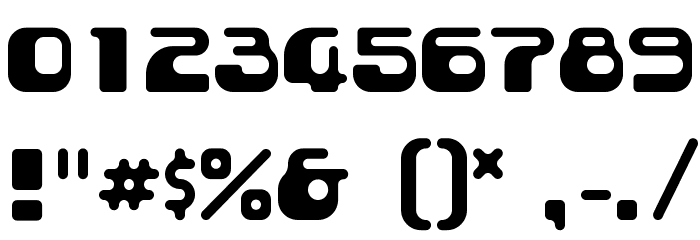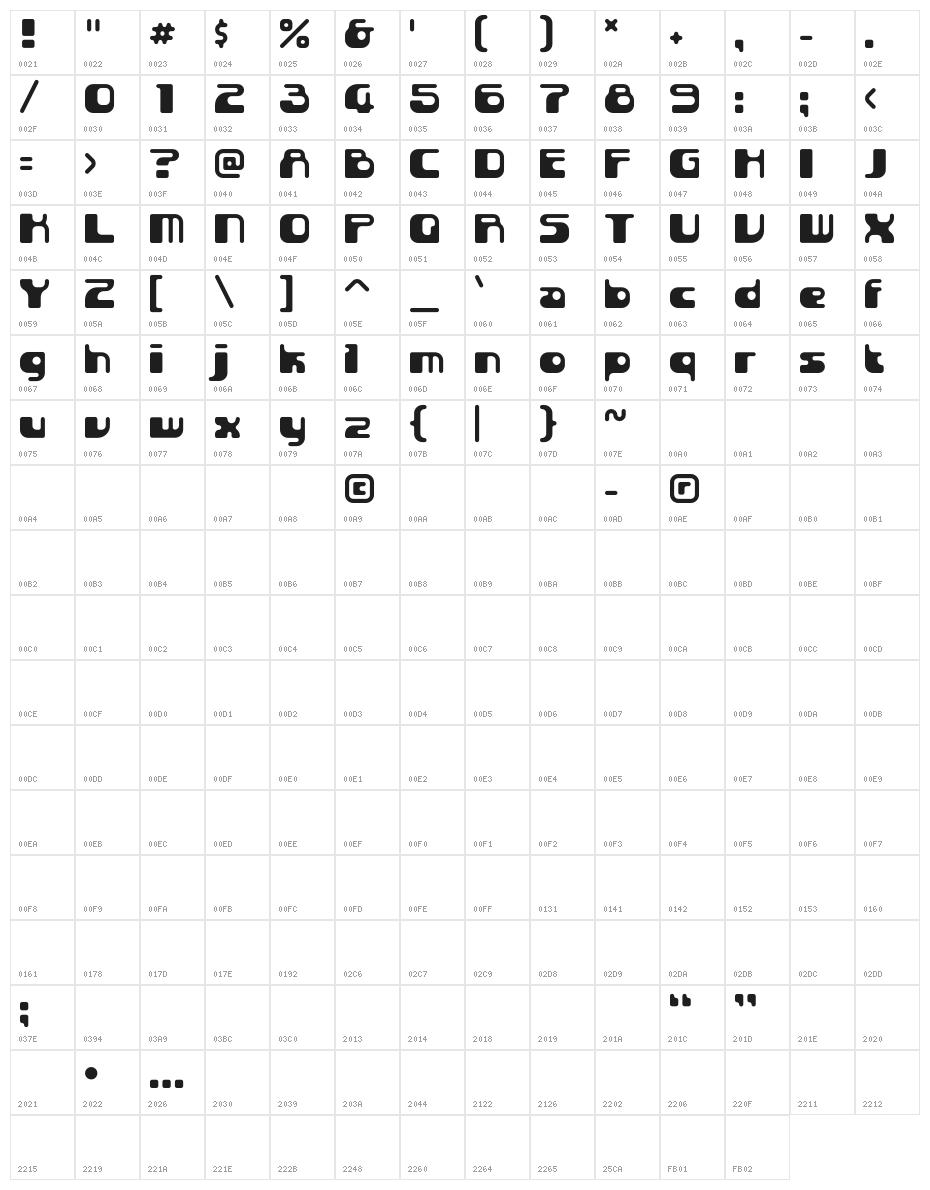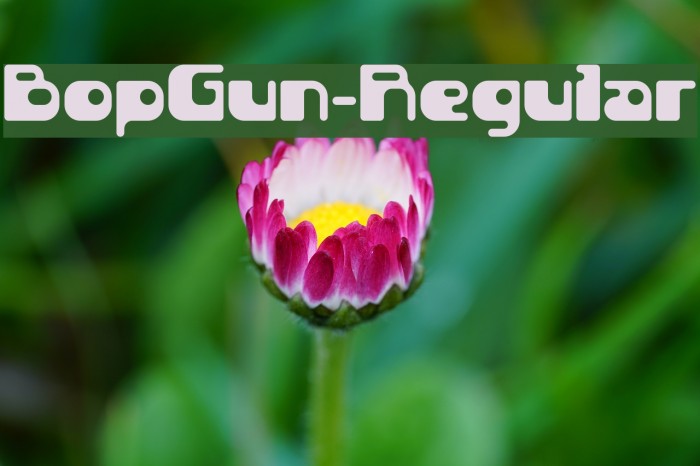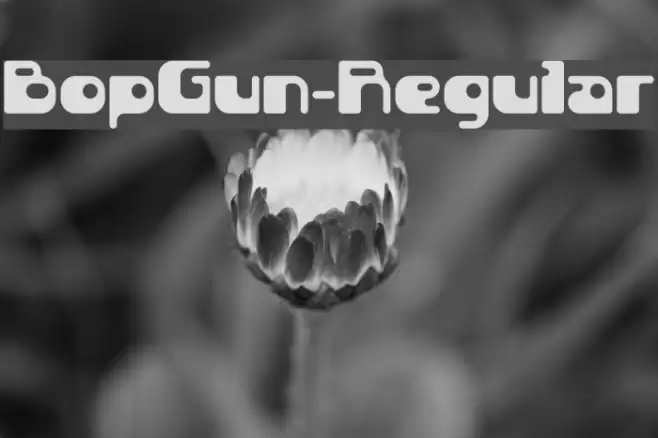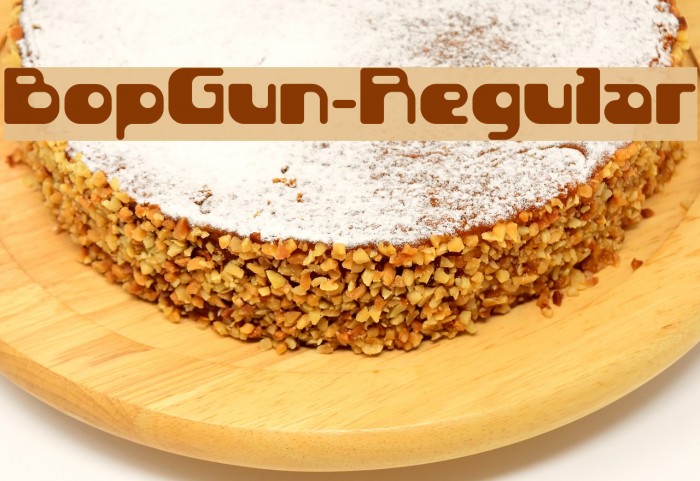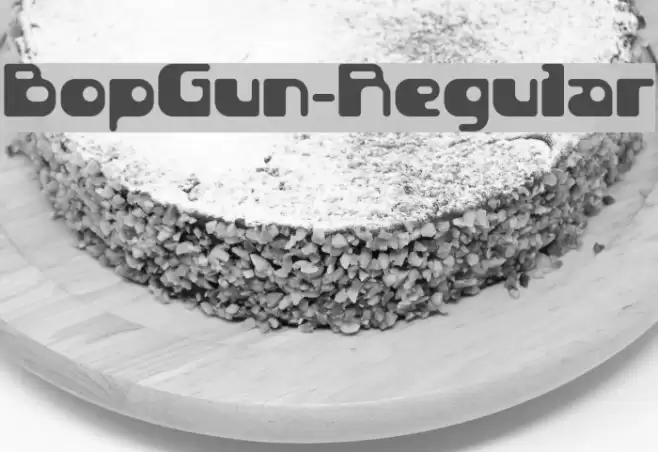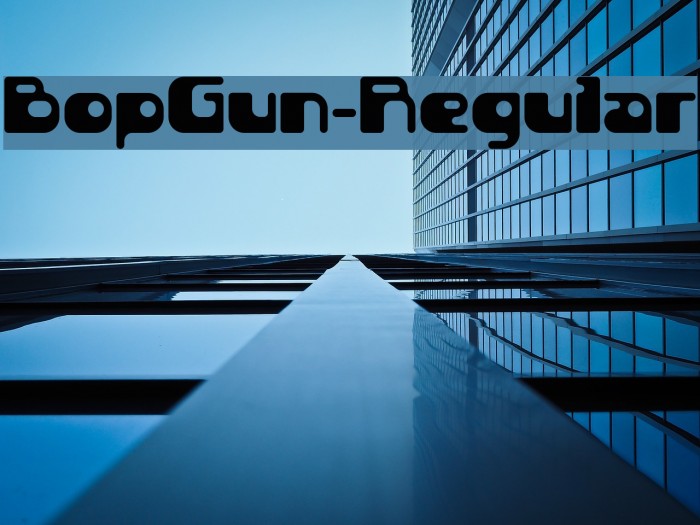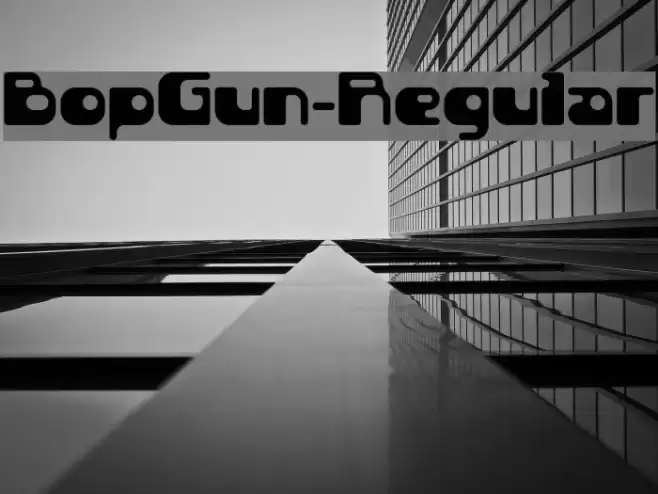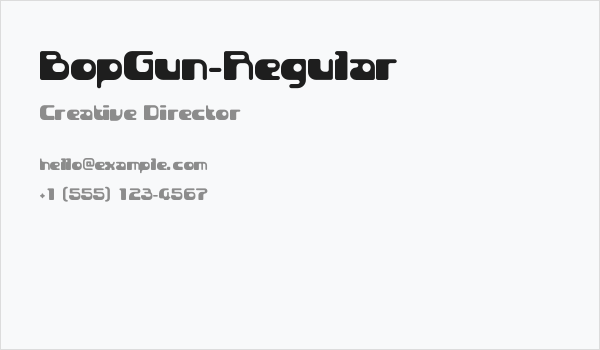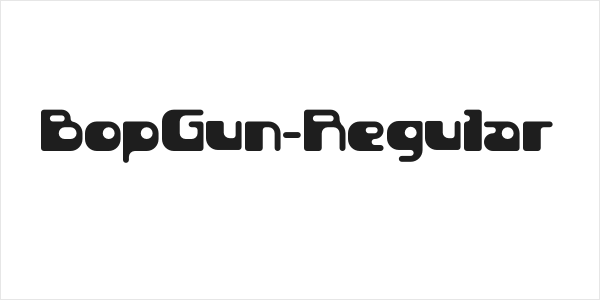
BopGun-Regular Font
BopGun-Regular Description
This font features a bold, rounded design with a futuristic and playful aesthetic. The characters are uniformly thick, with a consistent stroke width that gives it a solid and robust appearance. The rounded edges and smooth curves contribute to a friendly and approachable feel, making it suitable for a variety of creative projects. The uppercase and lowercase letters maintain a cohesive style, while the numerals and special characters are designed to match the overall theme. Its unique style makes it stand out, yet it remains legible and versatile.
| Use Case | Logos, Posters, Headlines |
| Proposed Projects | Ideal for branding, posters, children's books, video game graphics, and any project requiring a fun and modern touch. |